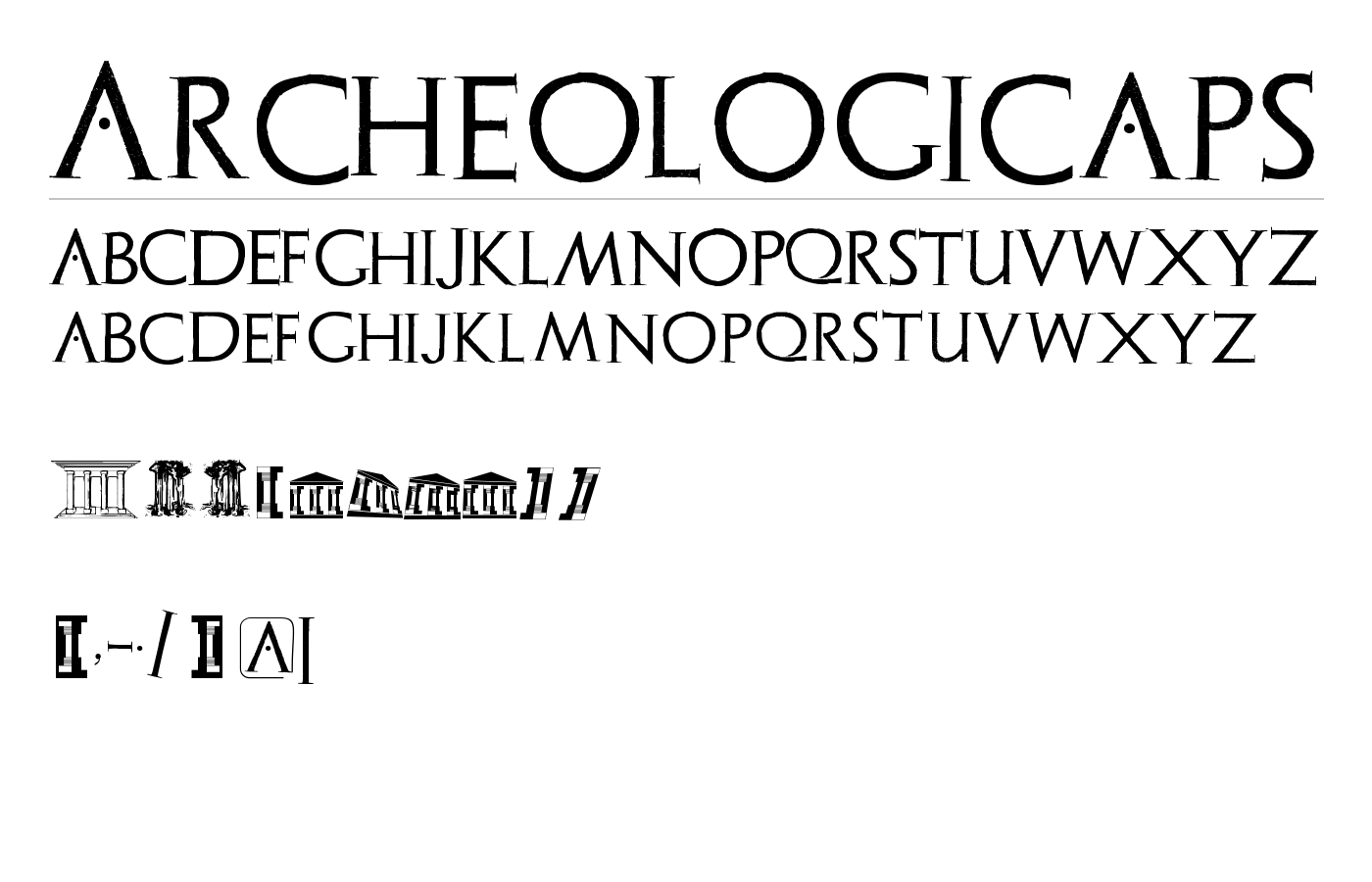
Archeologicaps is a distinctive serif font inspired by ancient Roman inscriptions, featuring sharp, elegant strokes with medium contrast and a slightly condensed width. Its classical and formal style, characterized by unique letterforms such as the stylized "A" and geometric shapes, evokes a timeless, historical feel perfect for projects seeking a refined, archaeological or heritage-inspired look. This font works best in headlines, logos, and editorial design where a touch of sophistication and antiquity is desired.
Archeologicaps Font